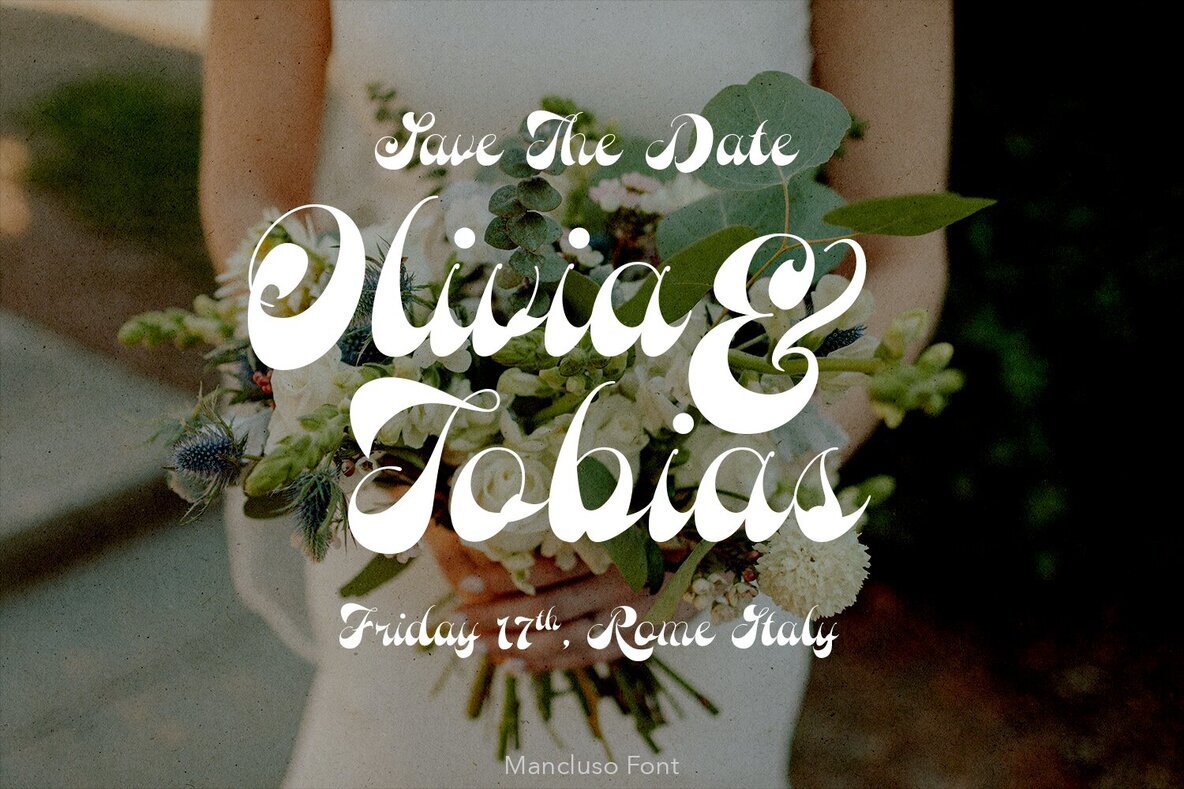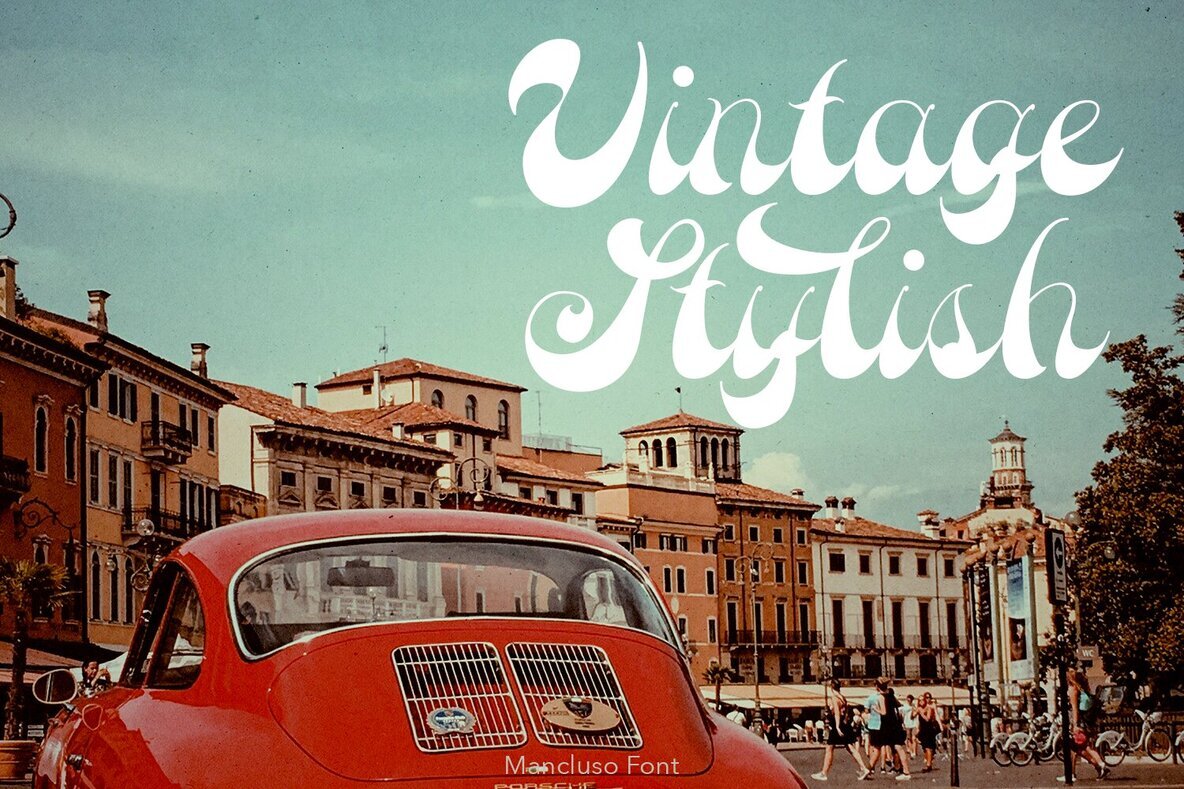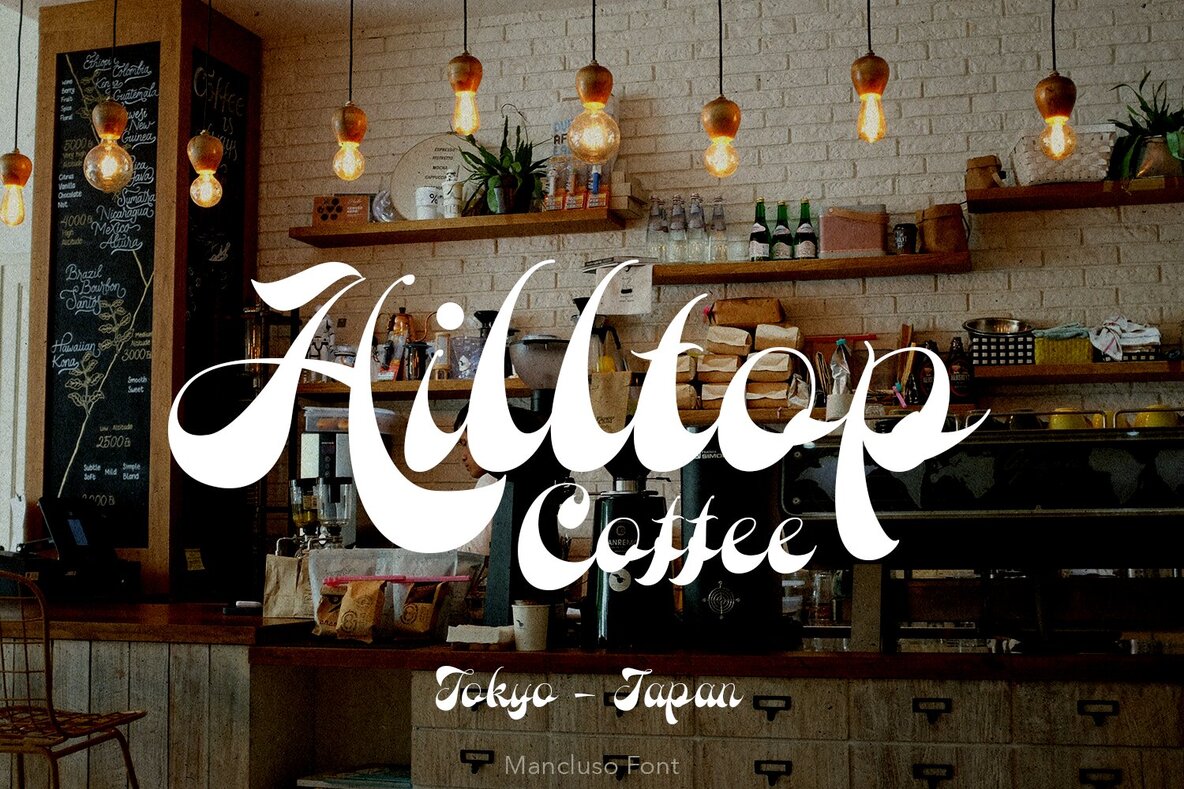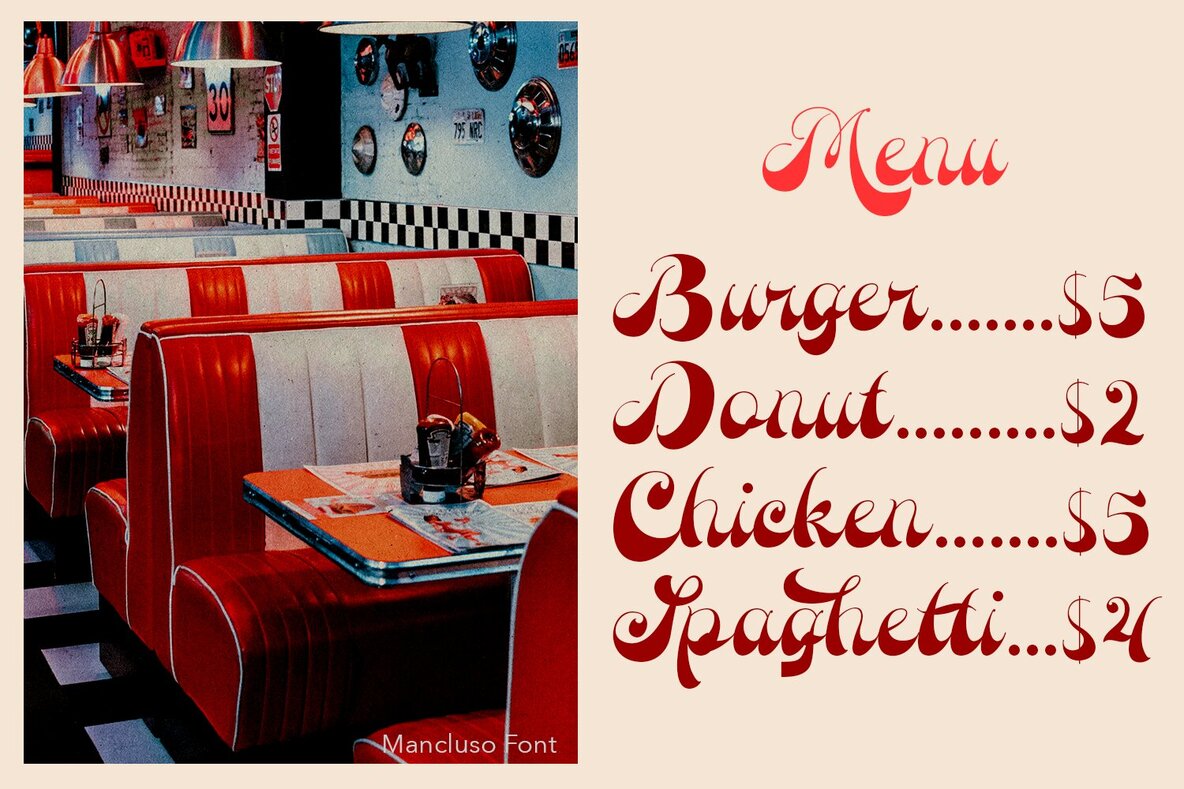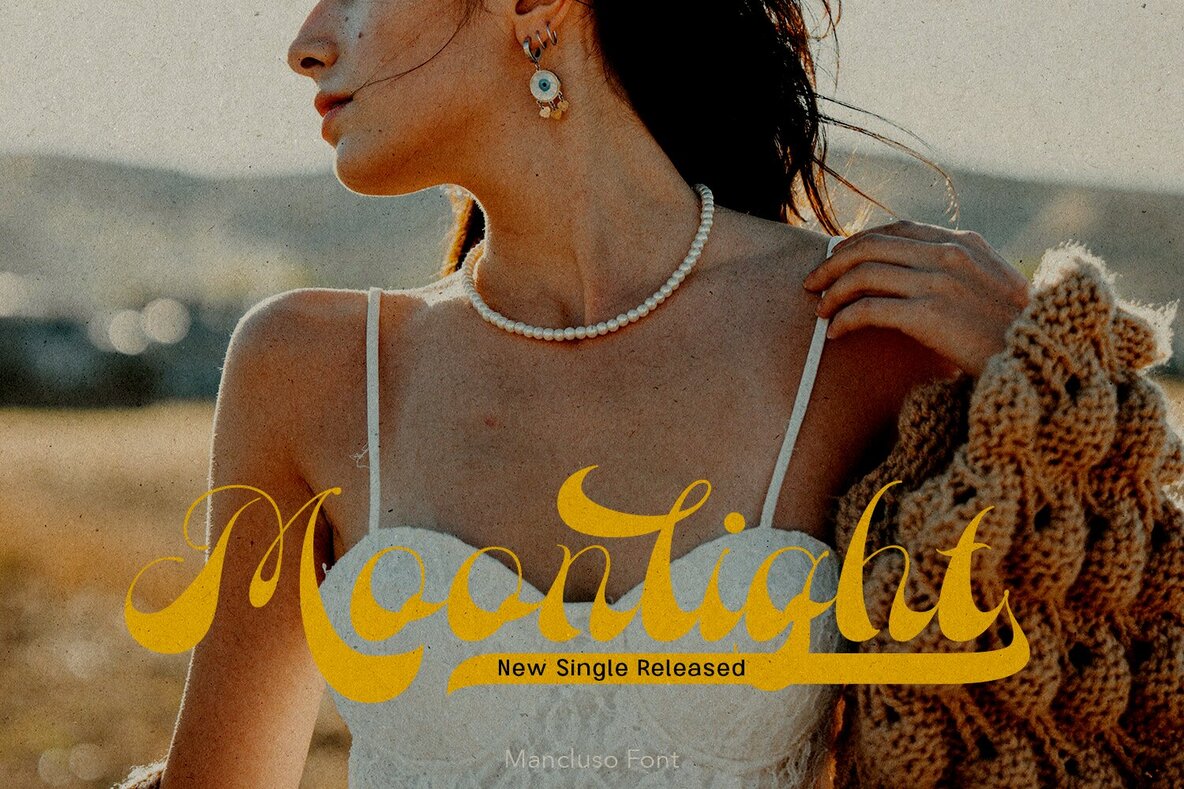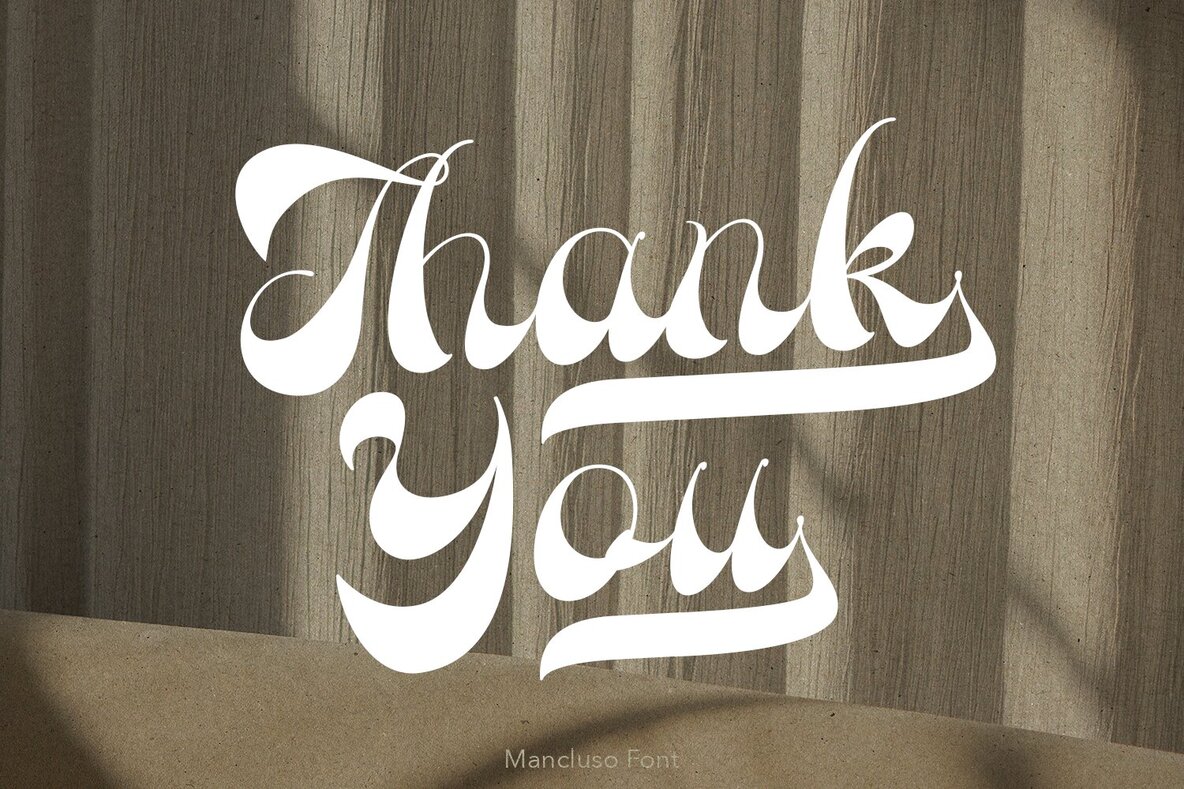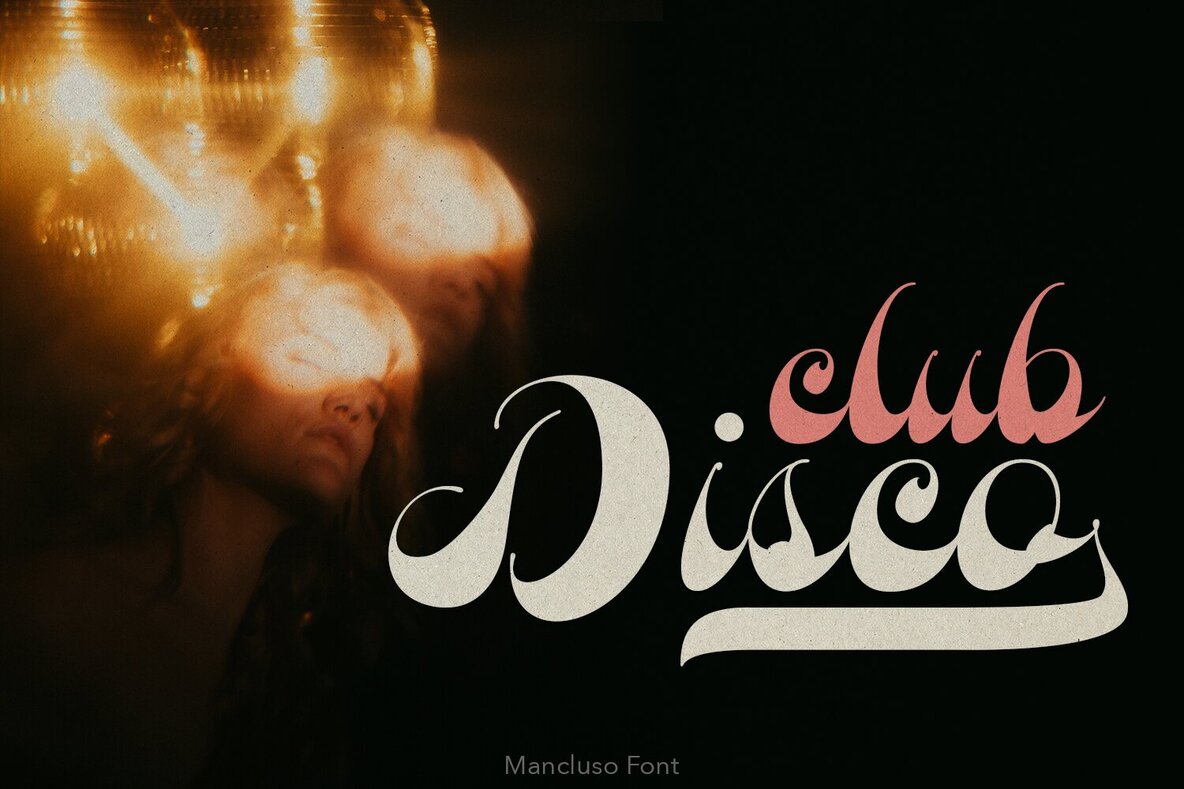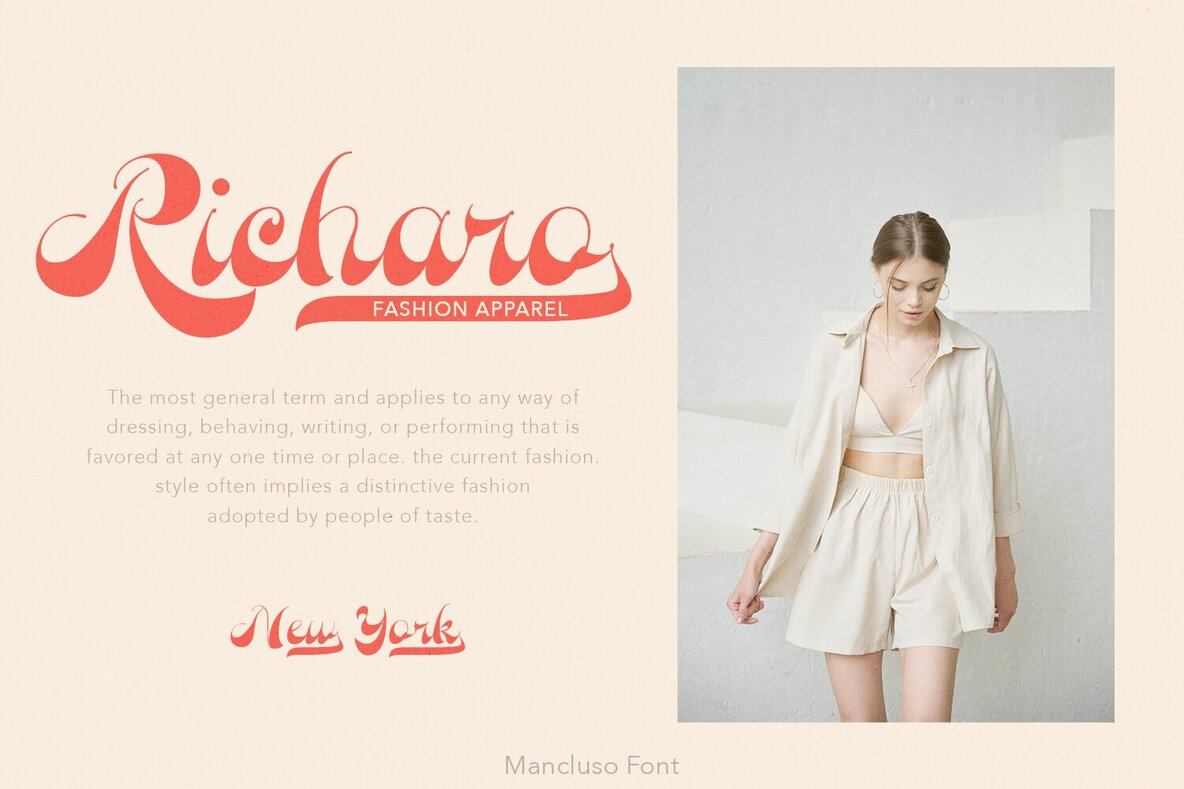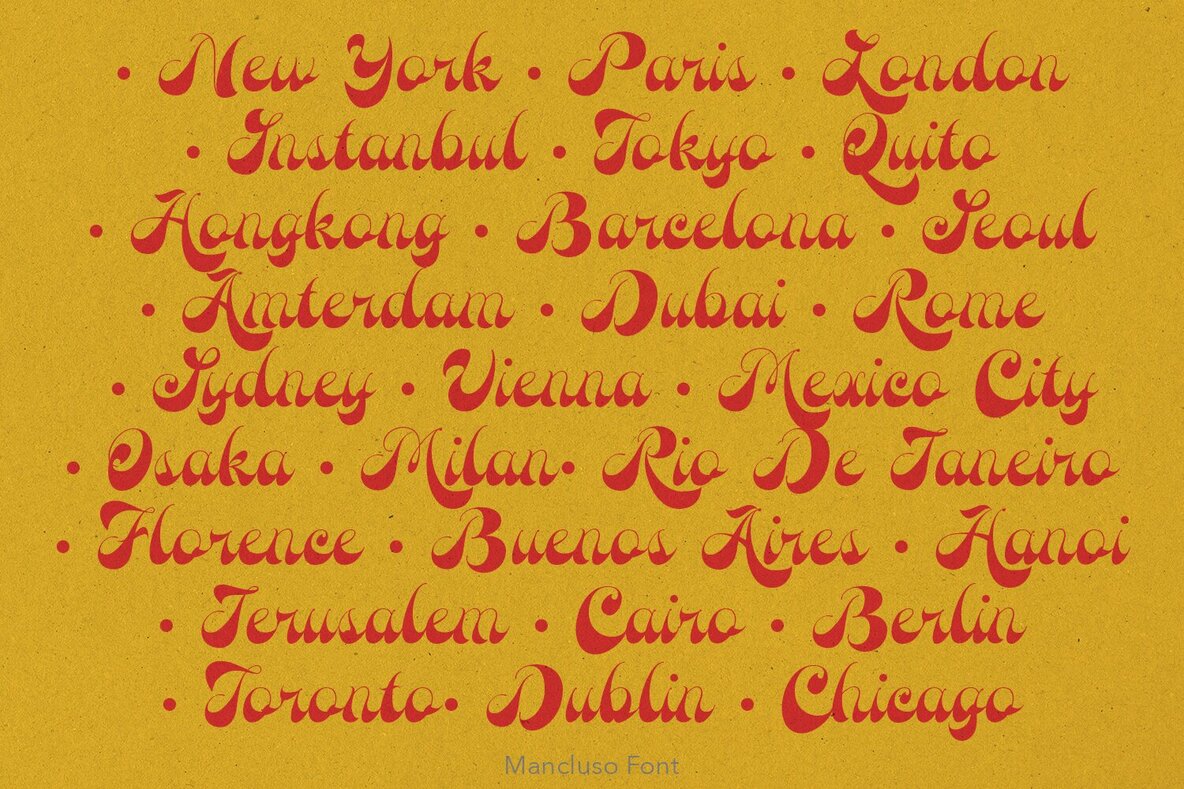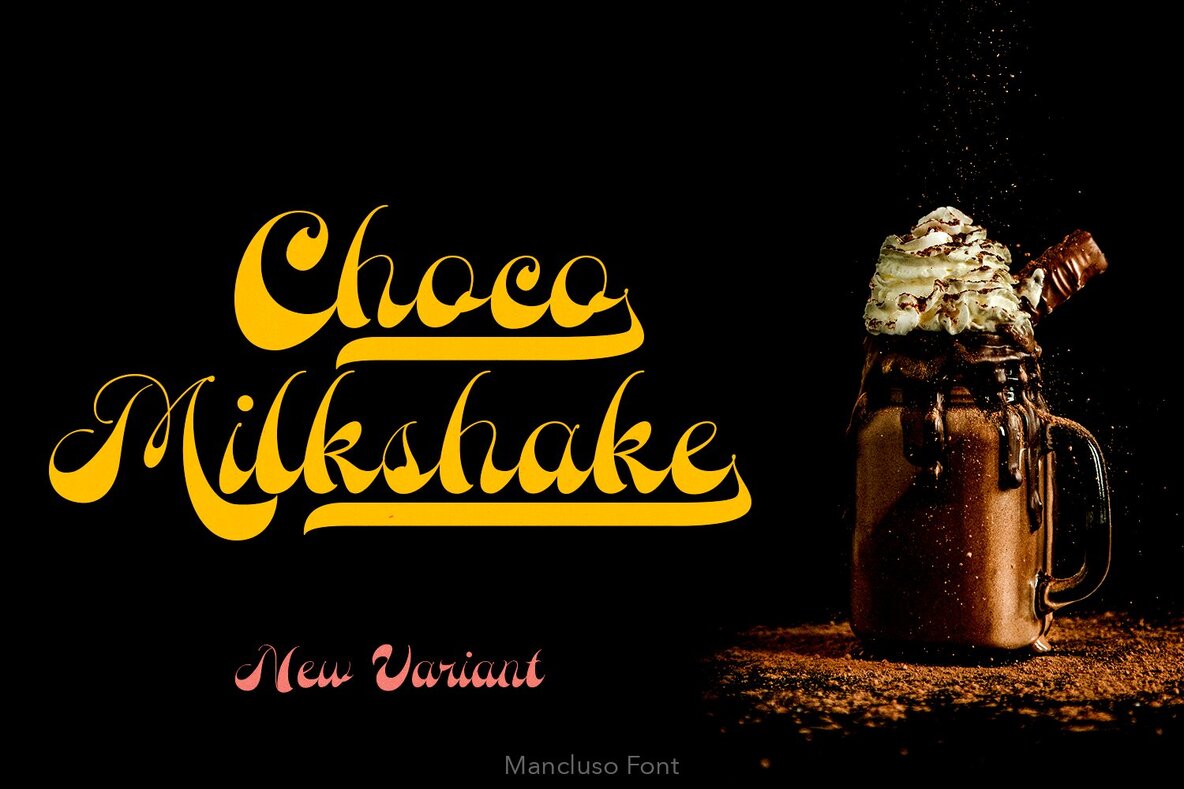
Mancluso Font
Mancluso Regular
Mancluso captures the essence of the 60's with its retro script style, offering a unique rhythm that enhances readability. This font is ideal for a variety of projects, adding a touch of vintage charm.Mancluso: Retro Script with 60's Flair